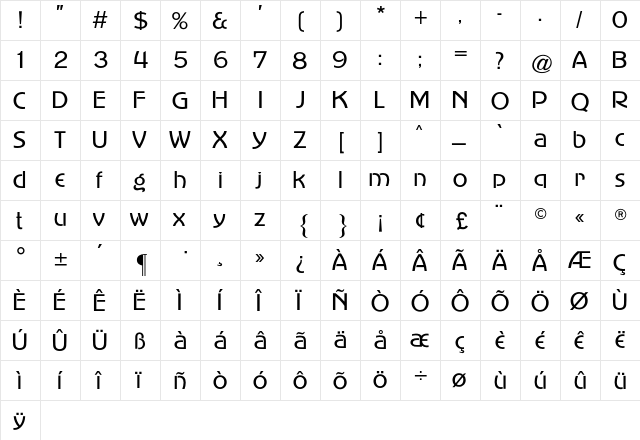
Advertisers Gothic CG Light Regular
| Foundry | Agfa Corporation |
Design Context for Advertisers Gothic CG Light Typeface
Advertisers Gothic CG Light takes a clean, functional approach — its unadorned letterforms prioritise legibility and work reliably across screen and print environments. Its slender proportions lend an understated elegance to any composition.
Ideal for fashion and beauty branding, minimal editorial layouts, and premium digital experiences.
Font Pairing: Pair Advertisers Gothic CG Light with a medium or bold serif for headlines — the weight contrast creates an elegant, high-end feel.
Pro Tip: Avoid using Advertisers Gothic CG Light at very small sizes where its slender strokes can disappear. It performs best at medium to large sizes.